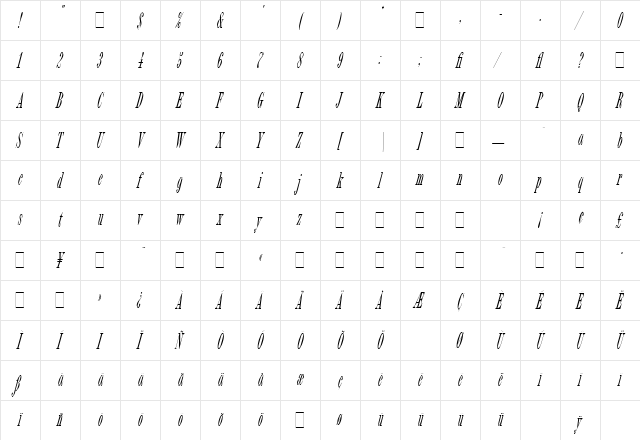
Bordeaux Italic LET Plain
Design Context for Bordeaux Italic LET Typeface
Bordeaux Italic LET offers clean, dependable letterforms without strong stylistic allegiance, making it a practical choice for designers who need flexibility. The dynamic lean of this cut emphasises speed and emphasis in any layout.
Pro Tip: Use Bordeaux Italic LET for emphasis, pull quotes, and subheadings where its slanted energy can add rhythm to the layout.